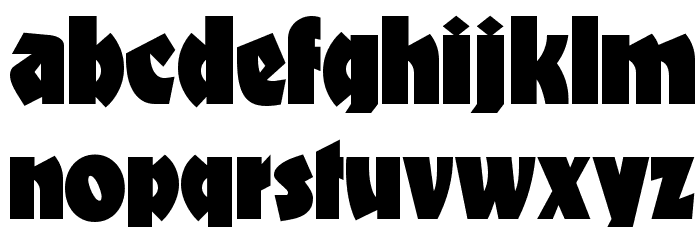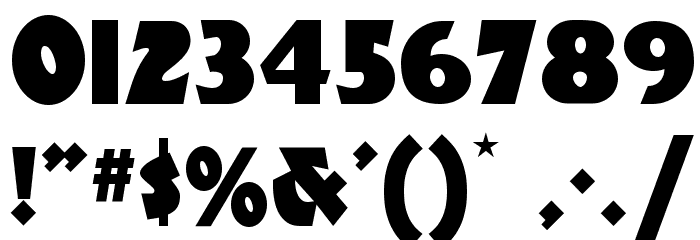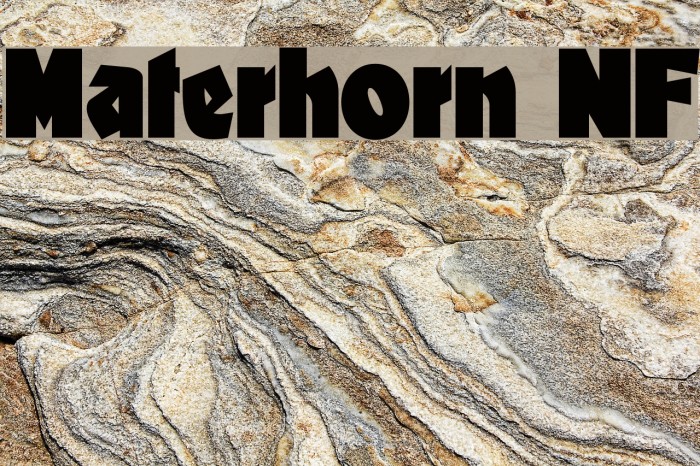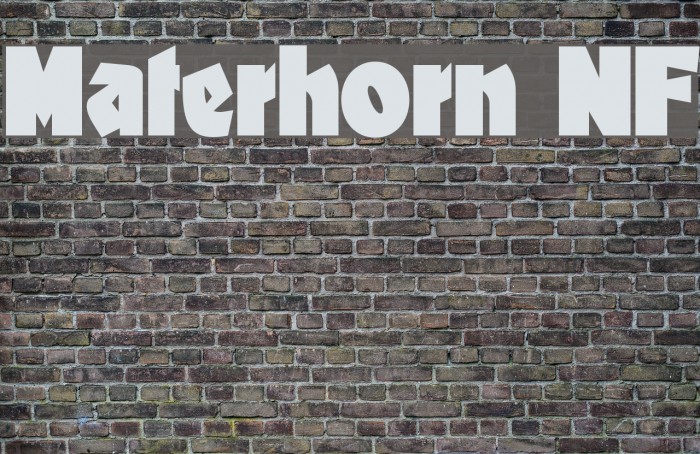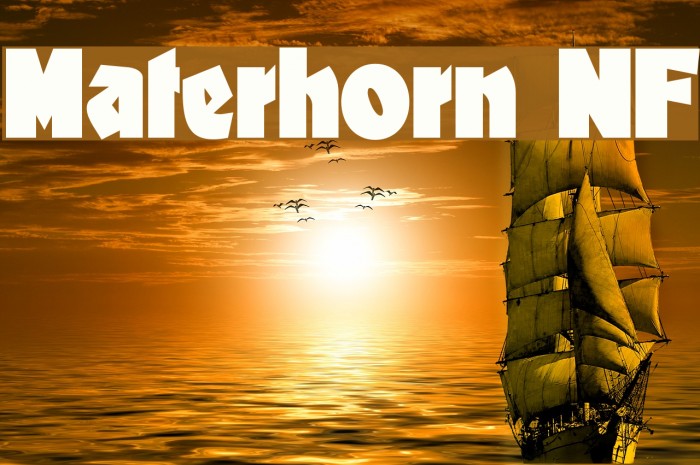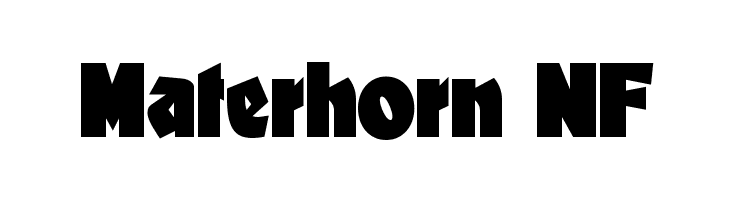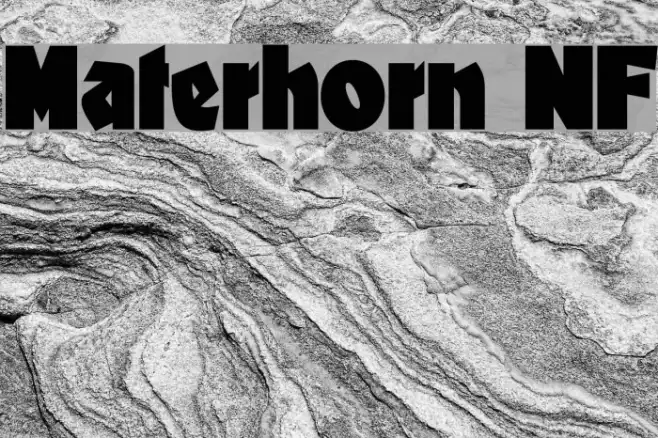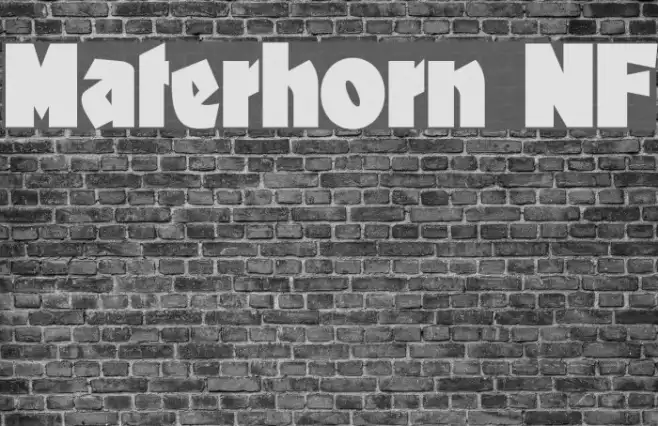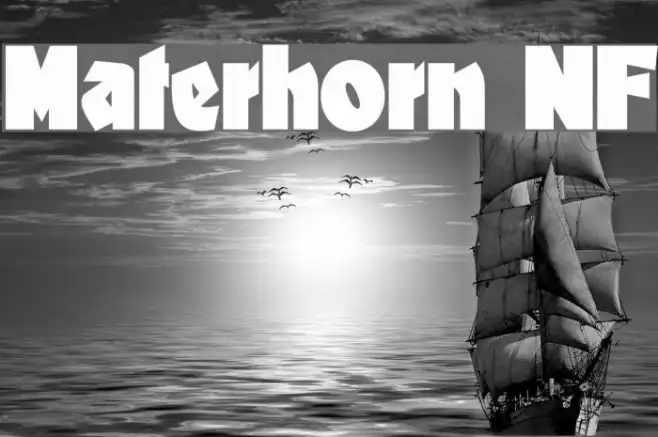
Materhorn NF Font
This font exhibits a bold and dynamic style with thick, heavy strokes that create a strong visual impact. The characters are designed with a slight slant, adding a sense of movement and energy. The uppercase letters are particularly striking, with sharp angles and a robust presence. The lowercase letters maintain the boldness while offering a more compact form. Numbers and special characters follow the same bold aesthetic, ensuring consistency across all elements. This font is ideal for making statements and grabbing attention due to its commanding appearance.
A bold, dynamic font with thick strokes and a strong visual impact.
- Font: Materhorn NF
- Proposed Projects: Ideal for posters, headlines, branding, and any project requiring a bold statement.